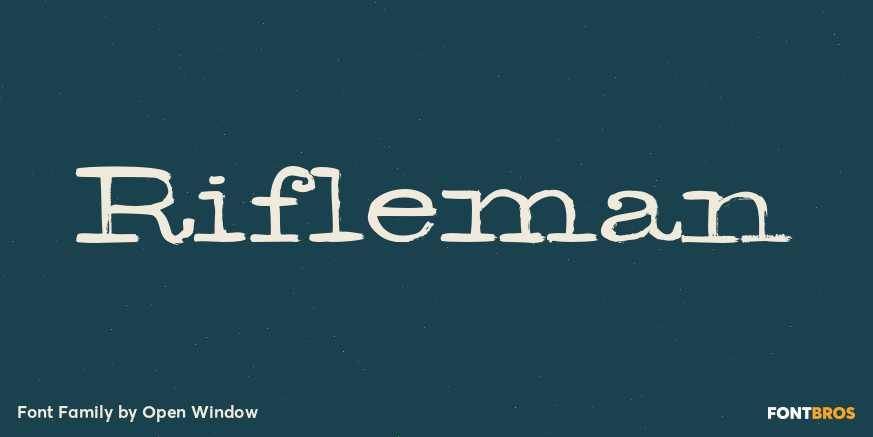
Rifleman
About Rifleman
What a nice tranquil feeling you get from the wide forms of this font. The air of spontaneity was the most important thing about developing Rifleman. The forms were carefully and slowly constructed and then loosely traced with a paintbrush. Maybe the…